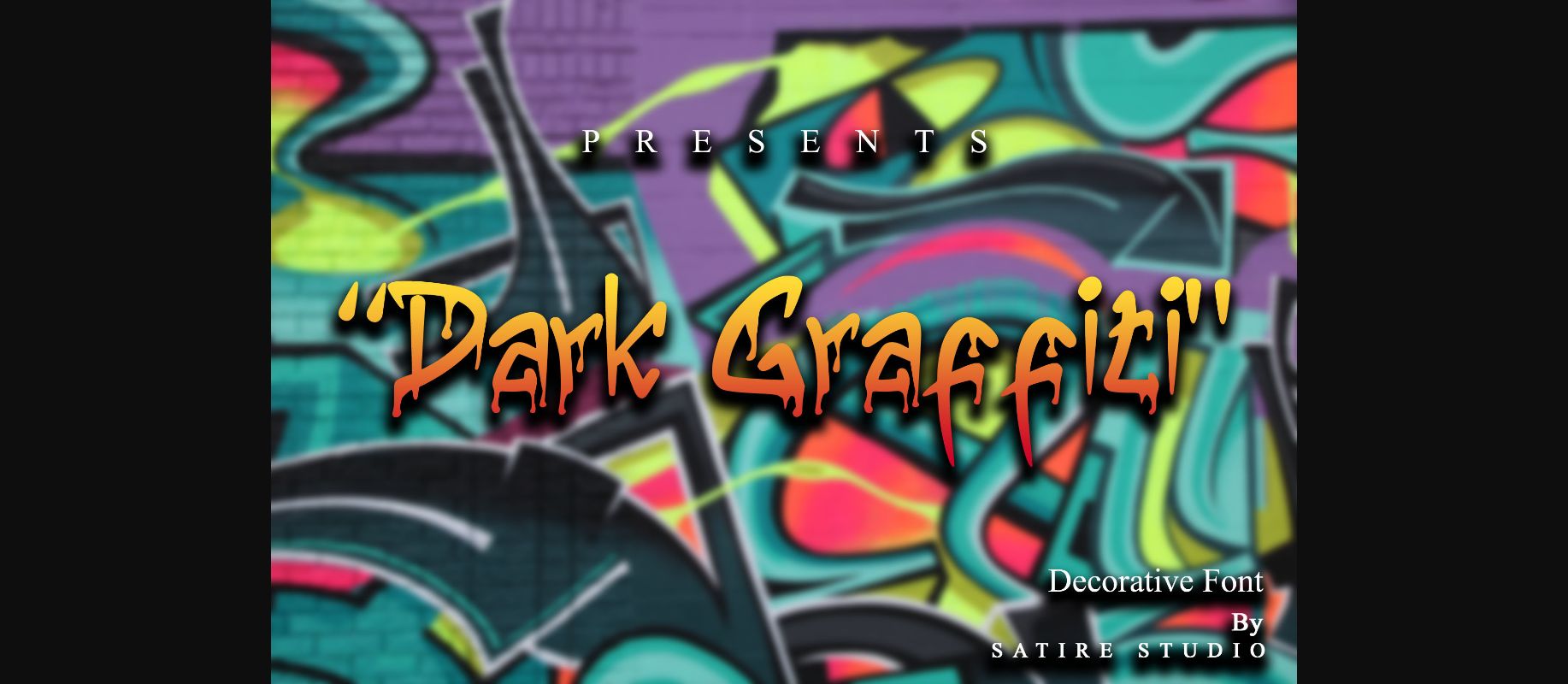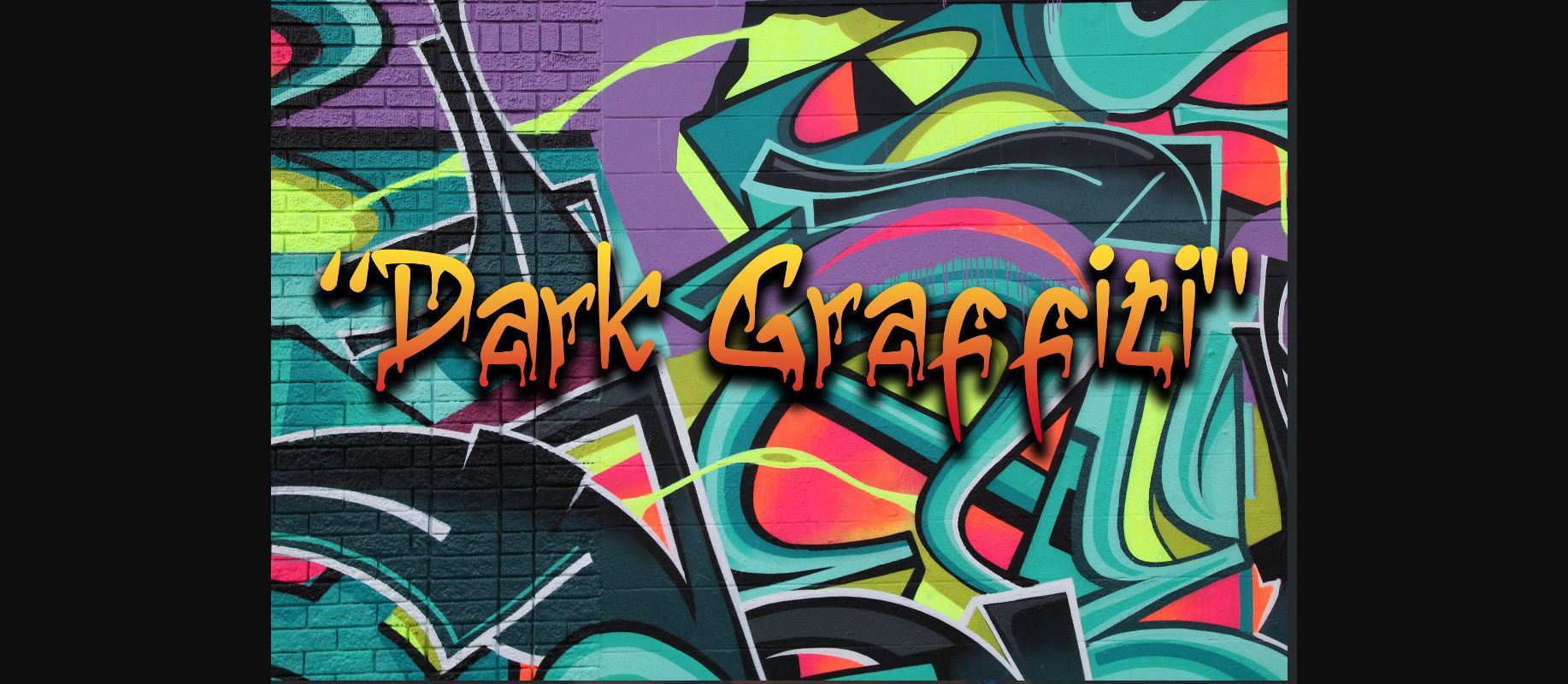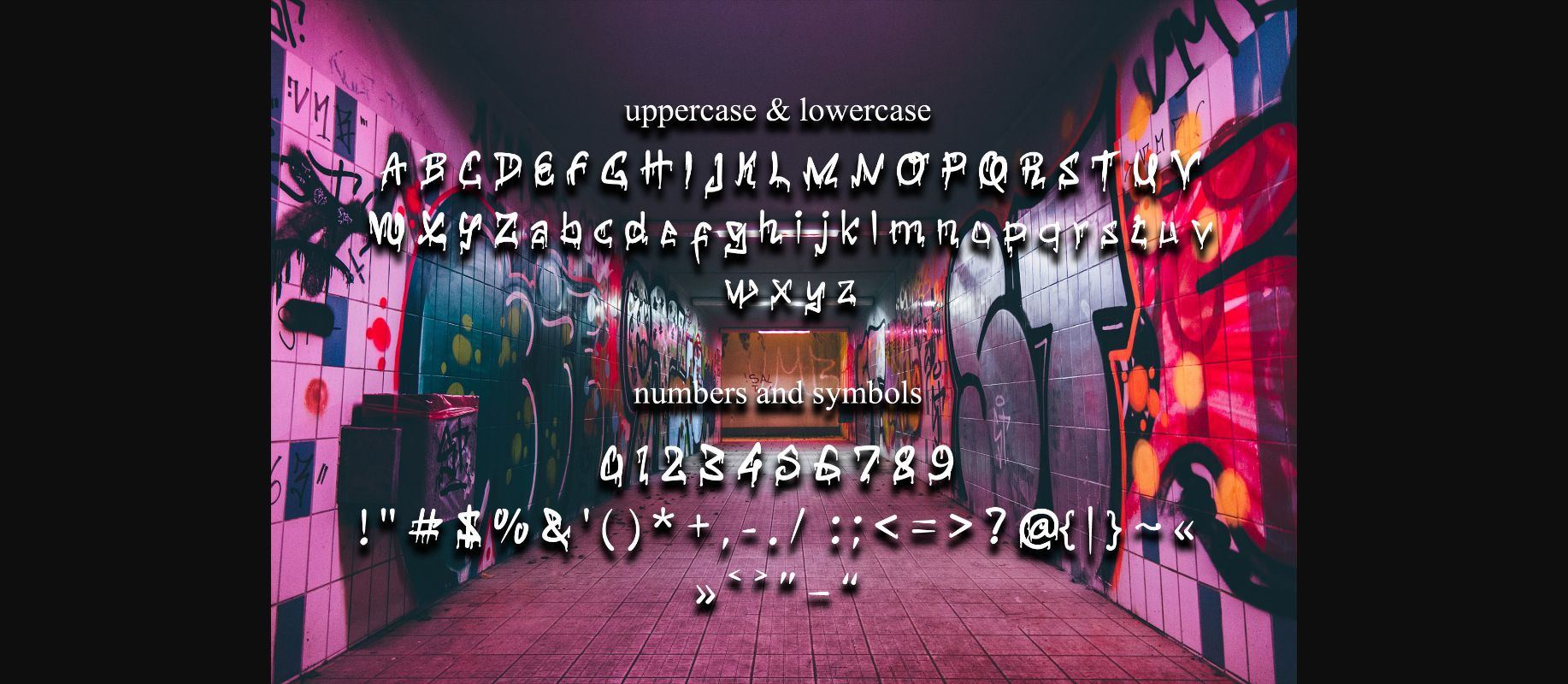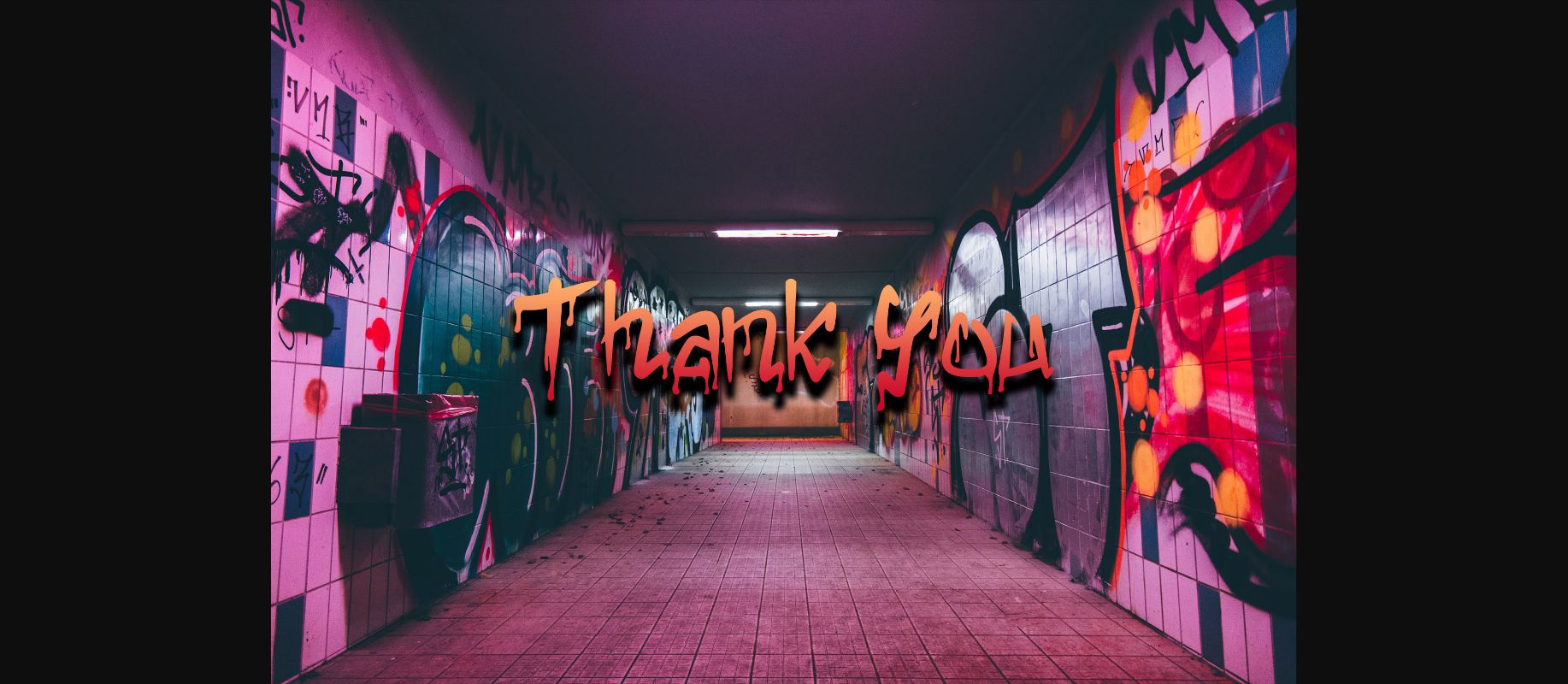
HomeDecorative FontsDrak Graffiti Font Decorative Fonts Drak Graffiti Font FacebookXPinterestWhatsApp 1 of 6 ... Drak Graffiti Font Poster 2... Drak Graffiti Font Poster 3... Drak Graffiti Font Poster 4... Drak Graffiti Font Poster 5... Drak Graffiti Font Poster 6... About Drak Graffiti Font Dark Graffiti is a decorative font with melting Grafitti font characters. It looks beautiful on invitations like greeting cards, branding materials, business cards, quotes, posters, and more! DOWNLOAD NOW People also explored Revina Monogram Font Chamelia Blinkar Font Holybuck Font The Hawaii Font Simple Planner Font Madhary Font Abigail & Dean Font Osande Font Divine Beauty Font 250 0 TagsDrak Graffiti Font Previous articleNature Green Monogram FontNext articleShantana Christmas Monogram Font LEAVE A REPLY Cancel reply Comment: Please enter your comment! Name:* Please enter your name here Email:* You have entered an incorrect email address! Please enter your email address here Website: Save my name, email, and website in this browser for the next time I comment. Personal Use Free Mandarins Personal Use Free Read more about this font Sheiloria Personal Use Free Read more about this font Propaniac Personal Use Free Read more about this font Loving Personal Use Free Read more about this font BLOG Fonts That Capture the Spirit of New York City New York City is more than just a place—it’s an experience, a rhythm, a visual language... 5 Fonts That Will Dominate Design Trends in 2026 Top 7 Google Fonts Alternatives for Faster and Privacy-Friendly Web Design (2025) Best Fonts for YouTube Videos: Make Your Thumbnails Stand Out